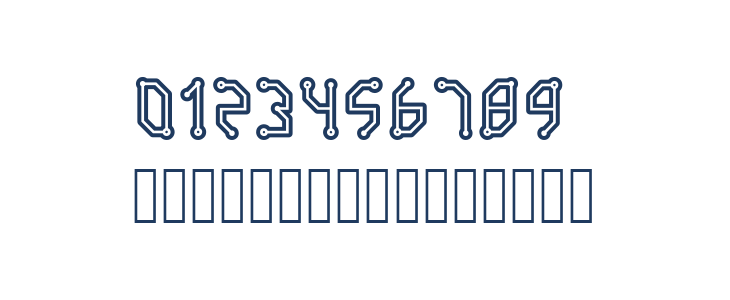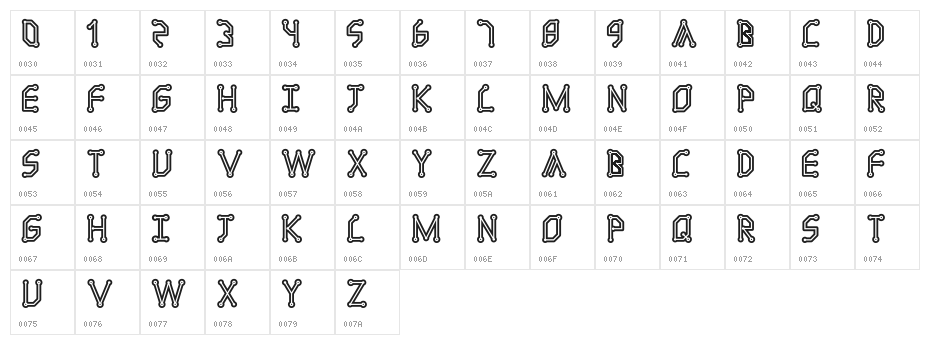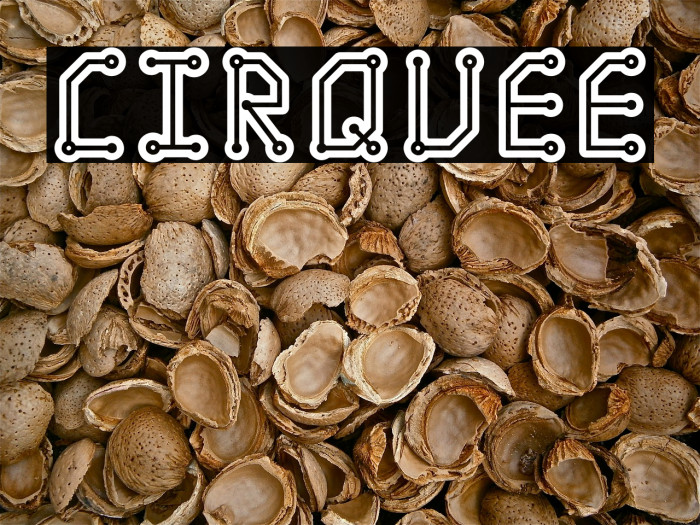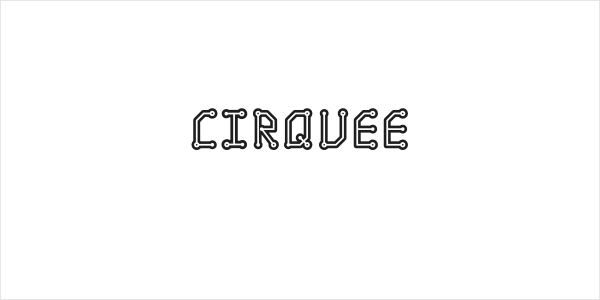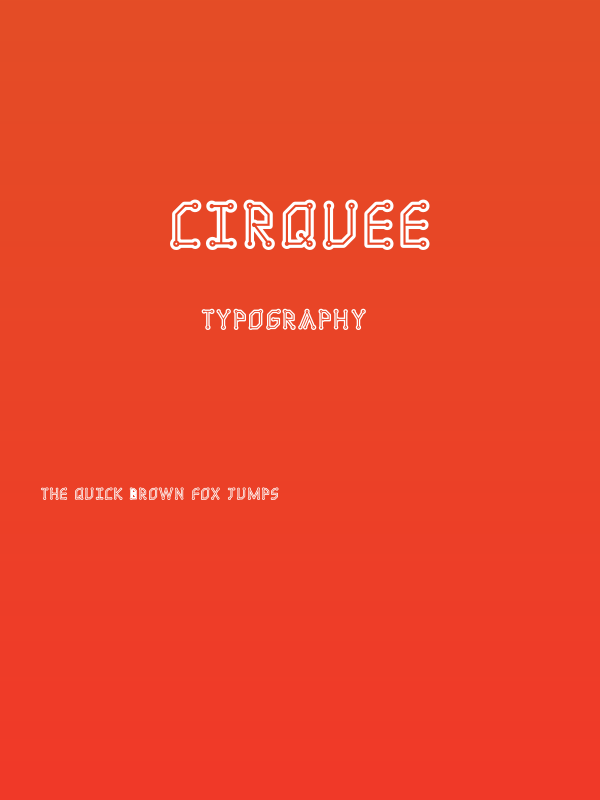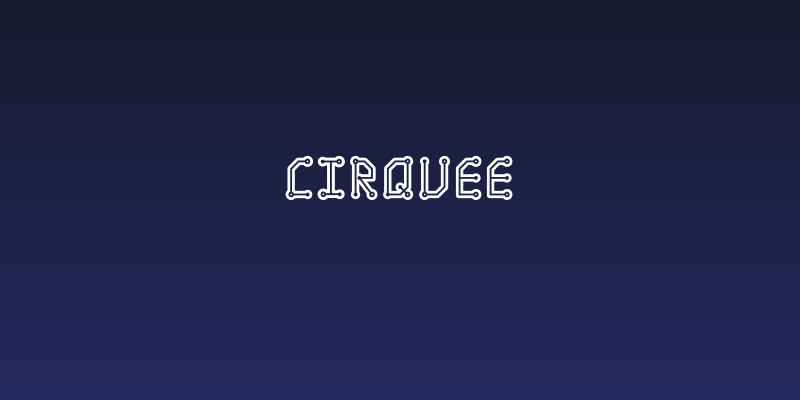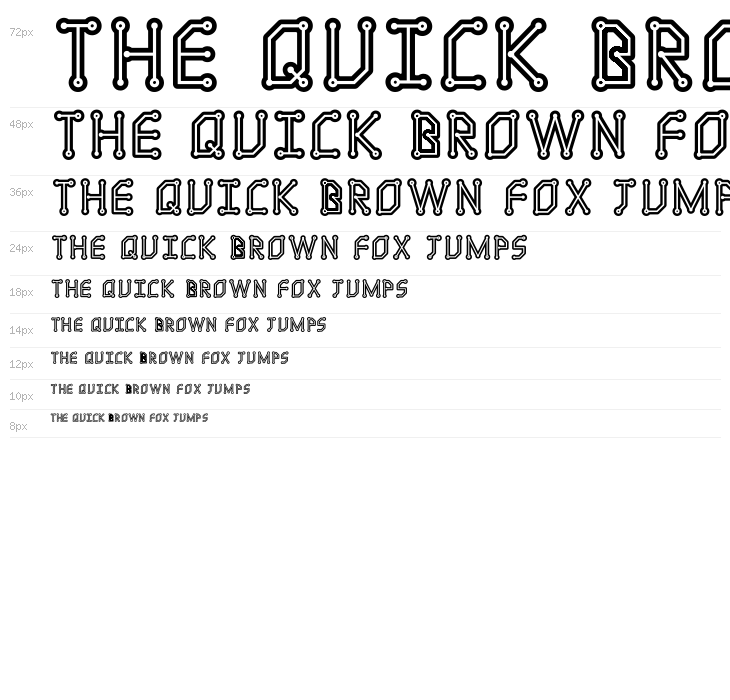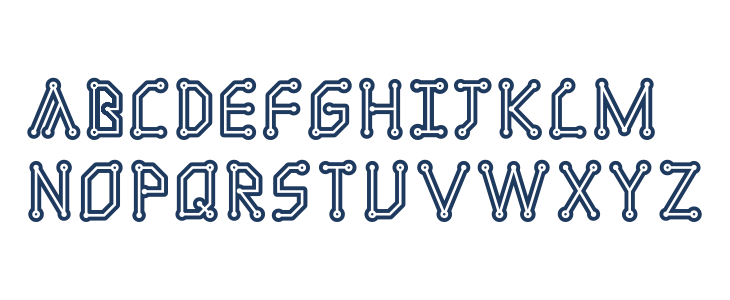
Cirquee Font
Cirquee Description
This font features a unique design that combines a modern, circuit-like aesthetic with a bold, geometric structure. Each character is outlined with a double line, giving it a three-dimensional appearance. The letters are constructed with straight lines and sharp angles, connected by circular nodes at key points, reminiscent of electronic circuits or network diagrams. This distinctive style is consistent across uppercase, lowercase, and numeric characters, creating a cohesive and futuristic look. The font's playful yet technical appearance makes it suitable for projects that require a modern and innovative touch.